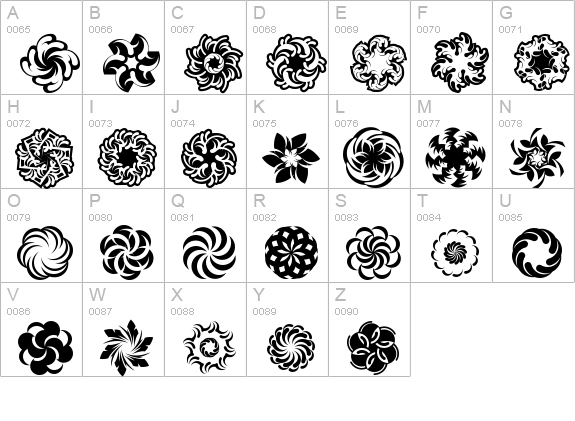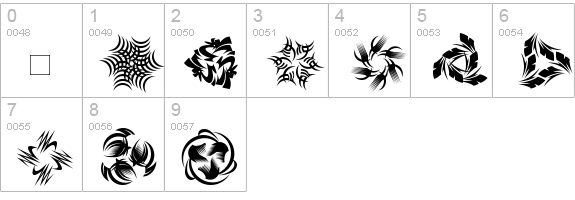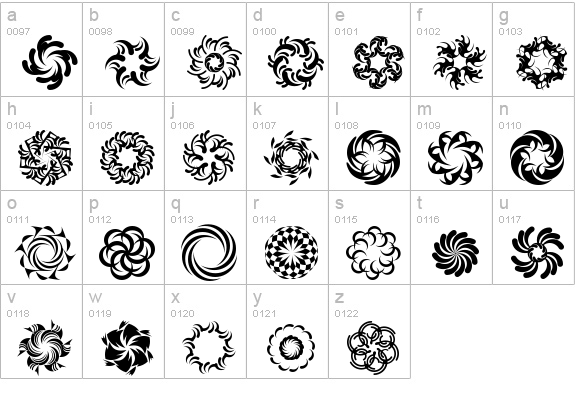
WhirligigBigTwo Font Details
Introducing WhirligigBigTwo, a captivating and versatile font that will add a touch of whimsy to any project. This unique typeface combines elegance with playfulness, making it the perfect choice for designs that need to stand out from the crowd. With its bold and curvaceous letterforms, WhirligigBigTwo captures attention and sparks curiosity. Crafted with meticulous attention to detail, this font offers a seamless blend of modernity and nostalgia. The swirling lines and intricate loops create a sense of movement and energy, allowing your words to dance across the page. Whether you're designing a logo, poster, or website, WhirligigBigTwo will infuse your work with a sense of fun and creativity. What makes WhirligigBigTwo even more appealing is that it is available for free! That's right, you can freely download this remarkable font at FontsMarket.com. This means that you can add a touch of elegance and whimsy to your projects without breaking the bank. Say goodbye to expensive fonts and hello to WhirligigBigTwo, the font that offers both quality and affordability. With its wide range of characters and extensive language support, WhirligigBigTwo is suitable for various design purposes. Whether you're creating eye-catching headlines or adding a playful touch to your social media graphics, this font will help you communicate your message in a unique and engaging way. Don't settle for ordinary fonts when you can have WhirligigBigTwo. Download it for free at FontsMarket.com and unleash your creativity. Let your designs come to life with this captivating and versatile typeface that will leave a lasting impression on your audience.